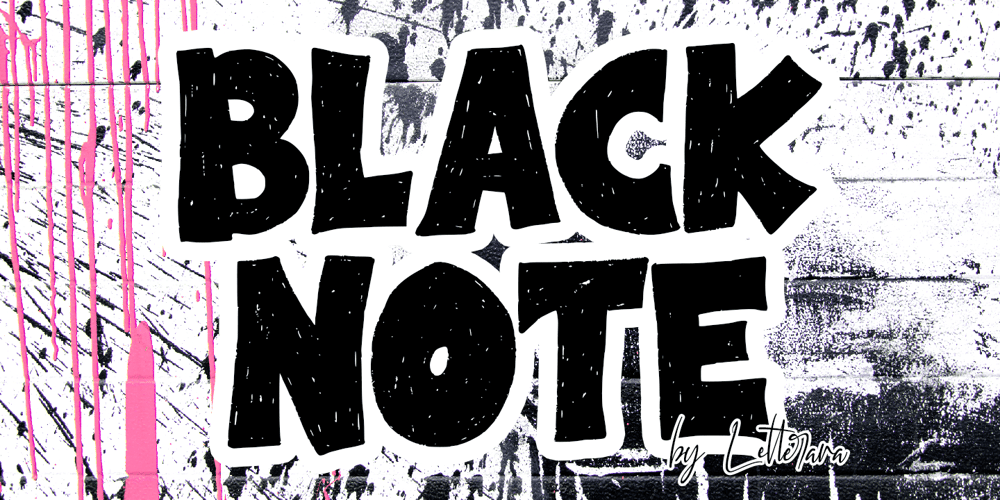
Black Note Font Family was designed by Thomas Aradea and published by Letterara. Black Note contains 2 styles and family package options. Black Note is a fun and strong font with a fresh feel. Get inspired by it and use it for any design projects that need a unique twist.